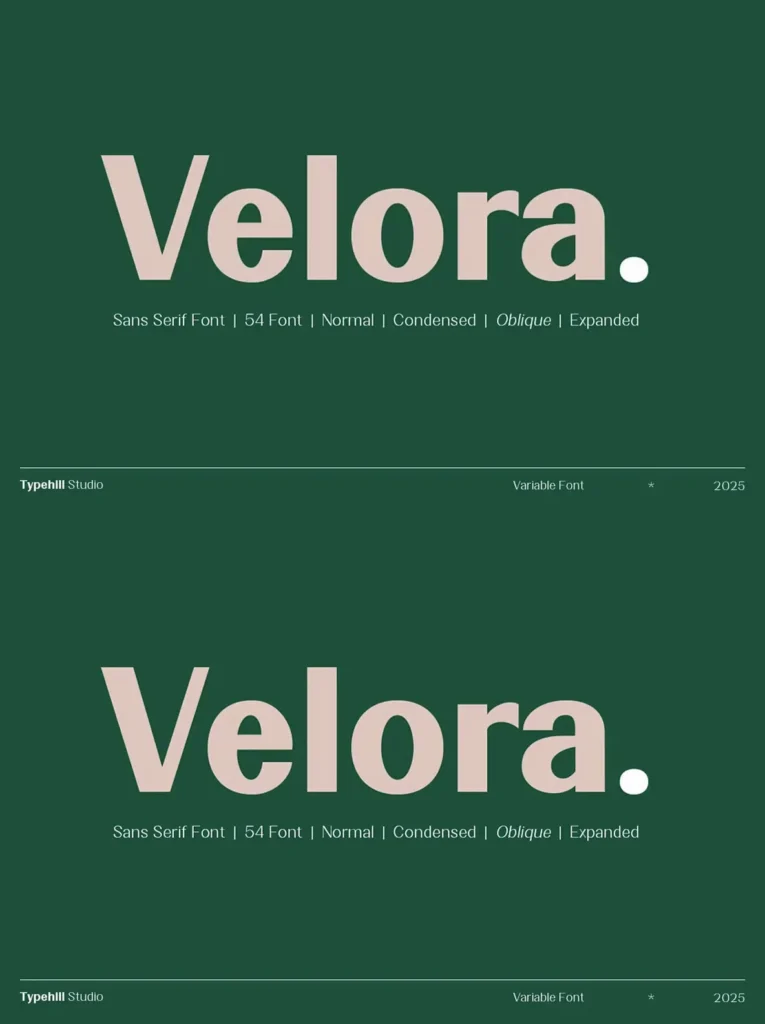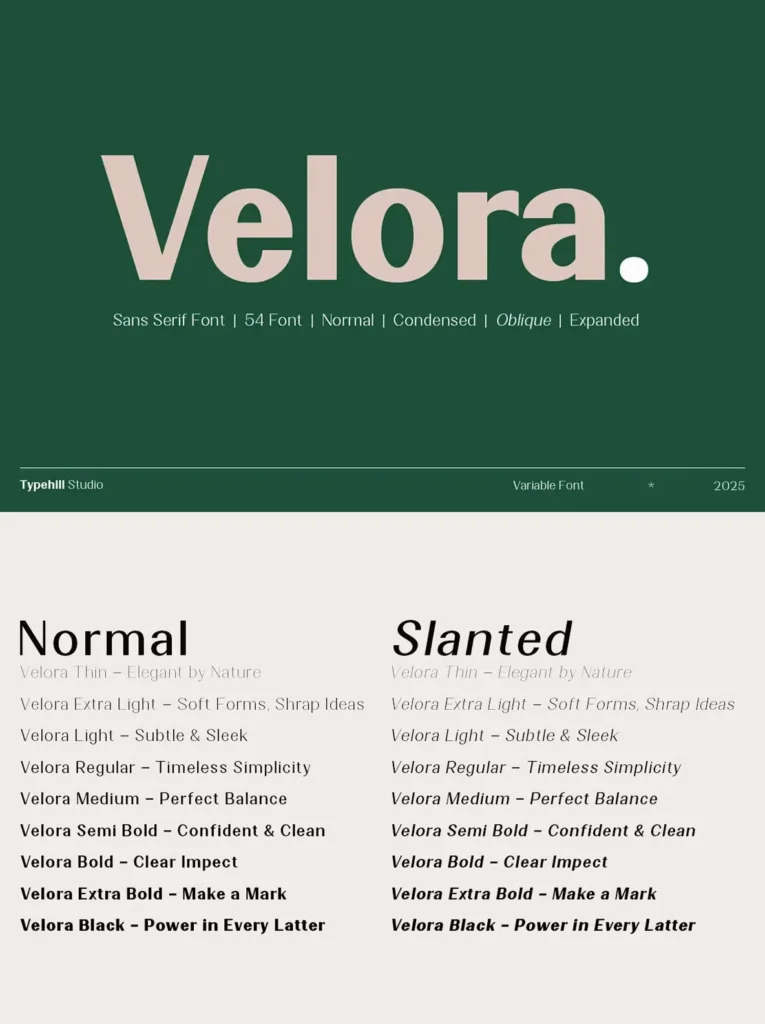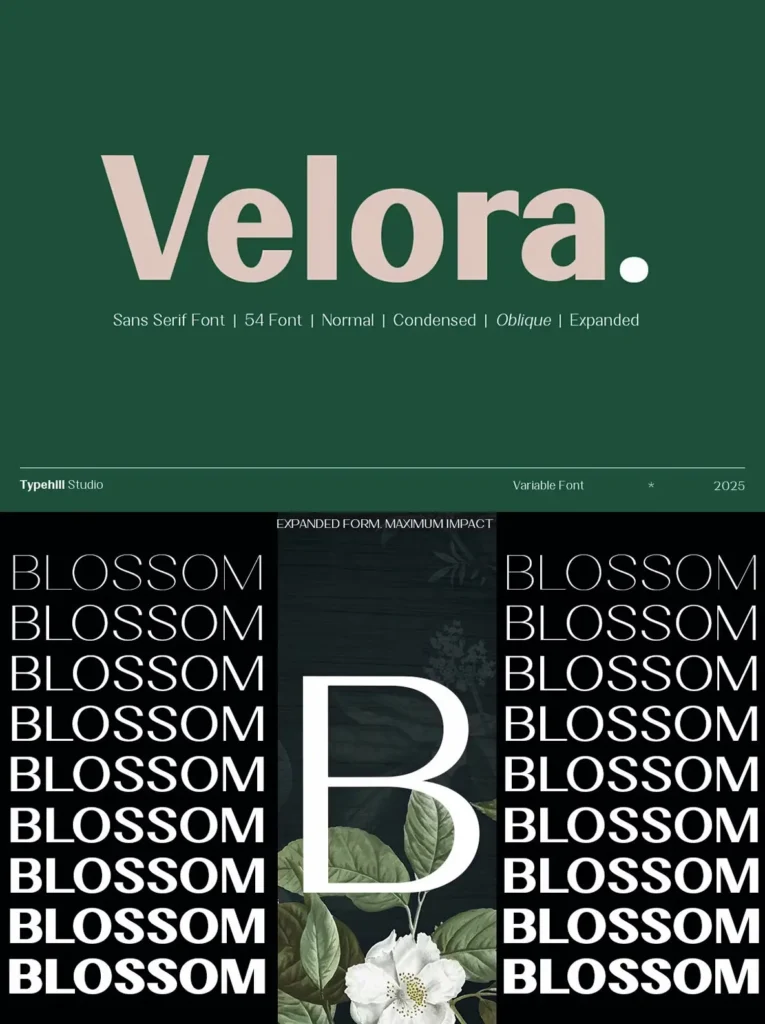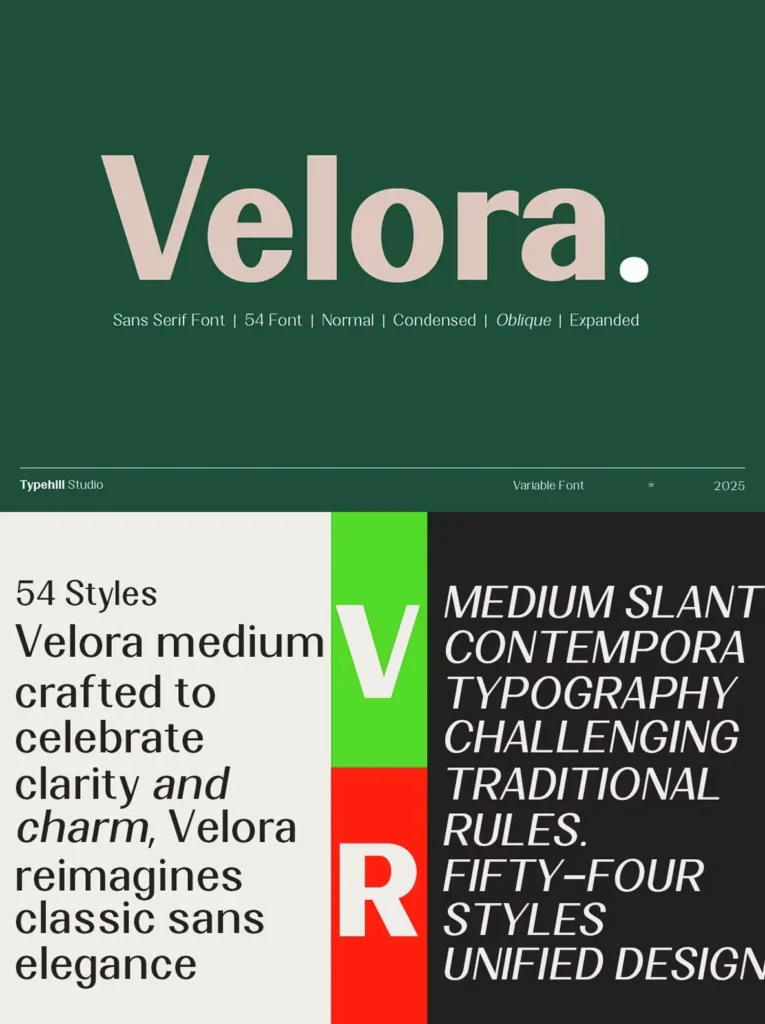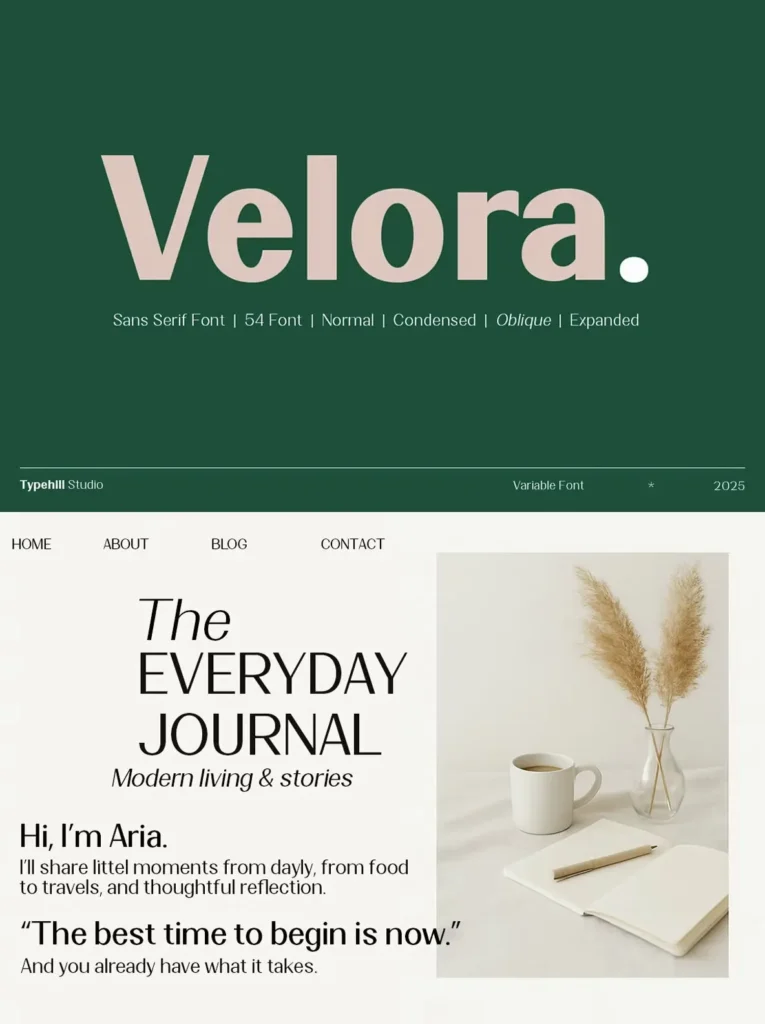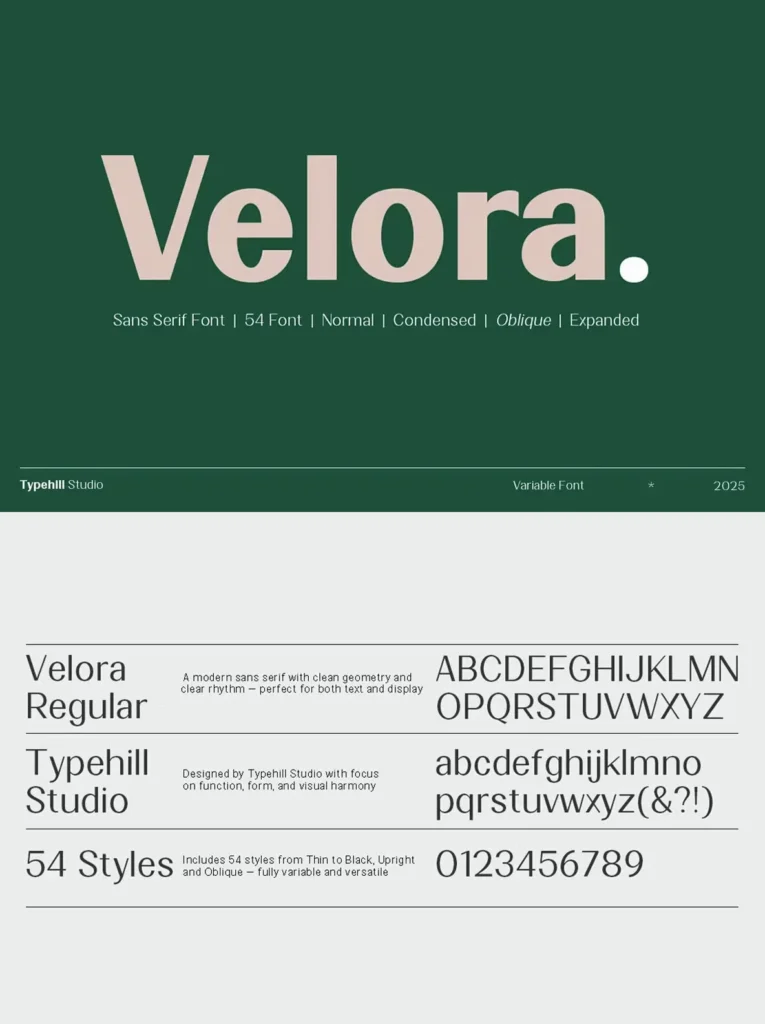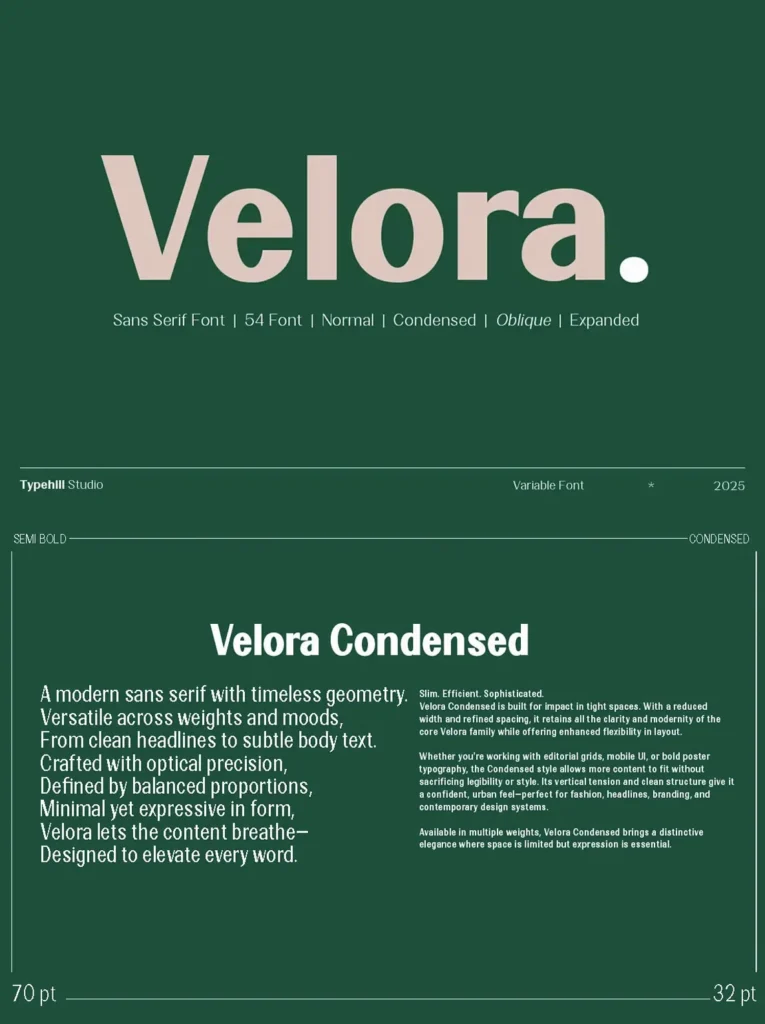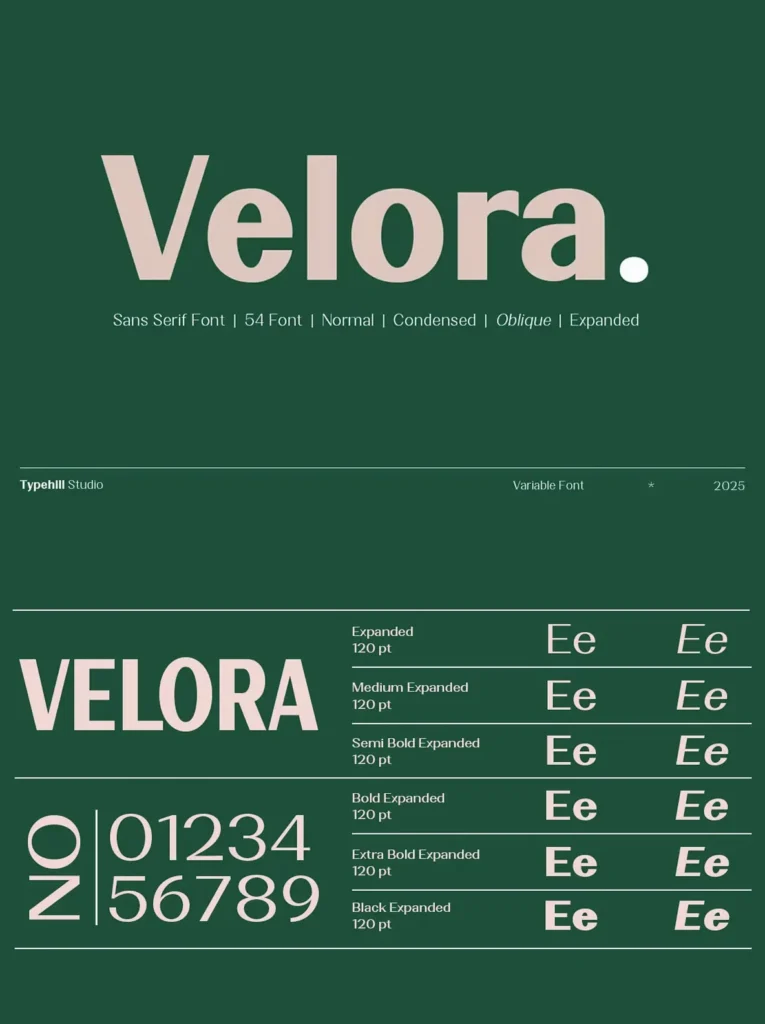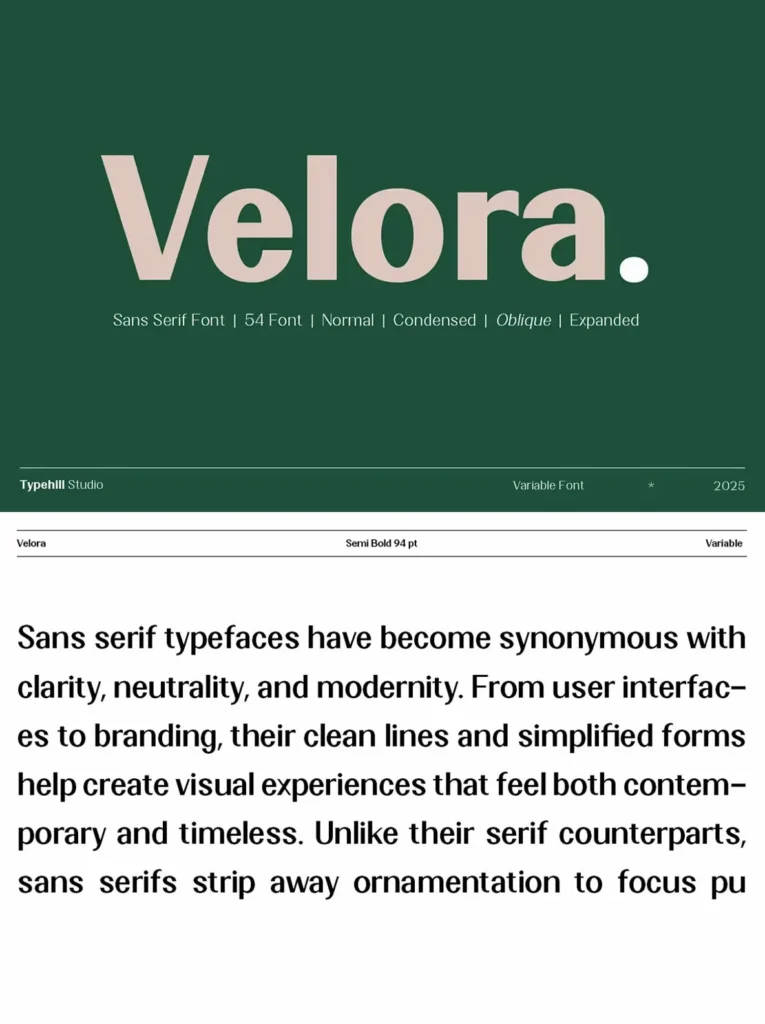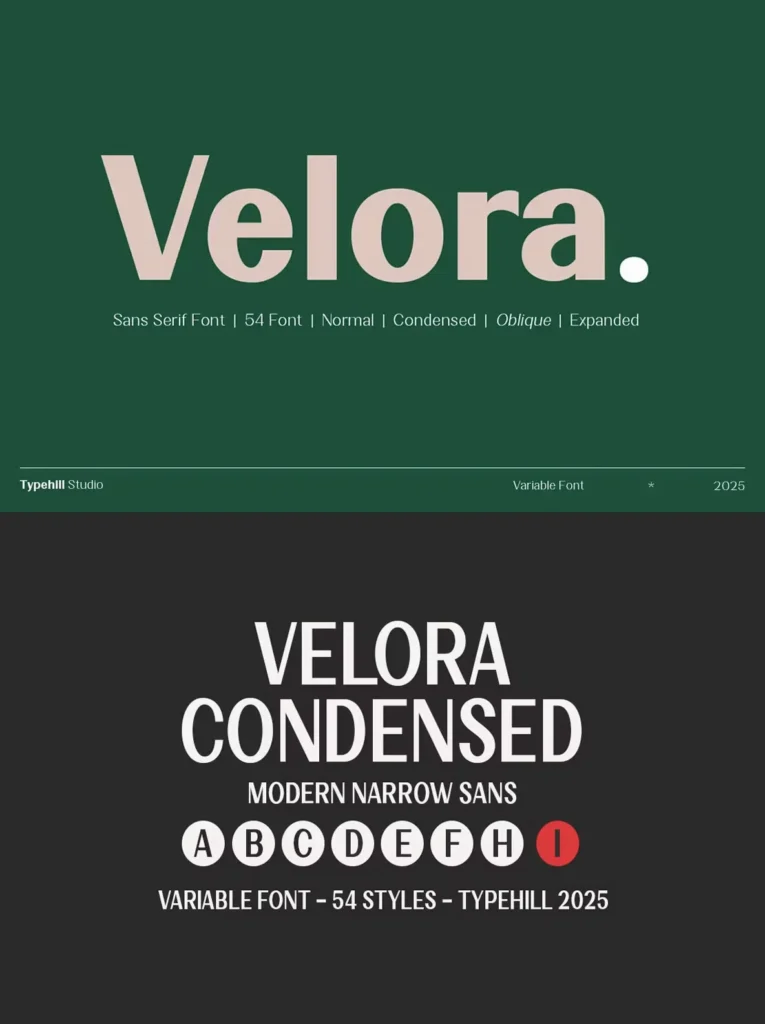
Velora: Versatile Sans Serif with Character
Velora is a refined sans serif typeface that unites modern functionality with timeless elegance. With a design crafted for clarity and flexibility, Velora excels in both digital interfaces and sophisticated print applications.
Key Features
54 Styles
– Ranging from Thin to Black, each style includes matching Obliques, offering a complete spectrum of expression.
Open Letterforms
– Its open letterforms and balanced proportions ensure high legibility across various sizes and applications.
Subtle Details
– Warmth and distinction are added to display settings with its carefully considered nuances.
Whether your focus is on branding systems, editorial layouts, websites, or signage, Velora provides the versatility and finesse needed to support your design voice with confidence.